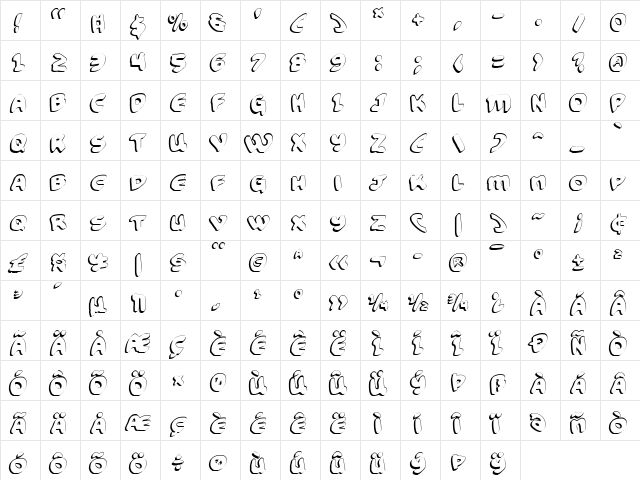
Funny Pages Shadow Shadow
| Designer | Dan Zadorozny |
Design Context for Funny Pages Shadow Typeface
Funny Pages Shadow has an approachable, lighthearted character — its loose, expressive forms are well-suited to children's content, casual branding, and fun-first design.
Great for children's books, toy packaging, family event branding, and casual consumer-facing design.
Font Pairing: Pairs well with a rounded or humanist sans for body copy, maintaining the friendly tone without relying on Funny Pages Shadow to carry extended reading.
Pro Tip: Avoid using Funny Pages Shadow for long passages of text — it works best for headlines, labels, and short calls to action.